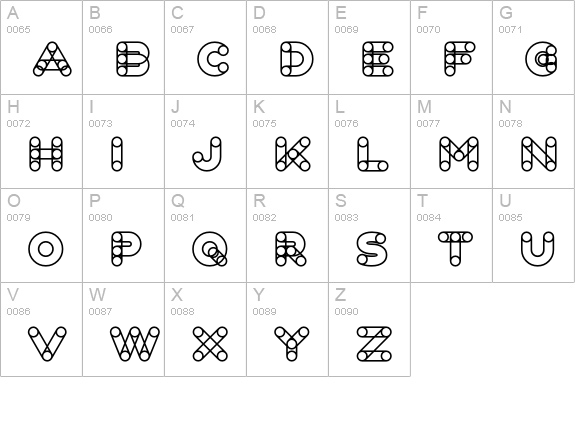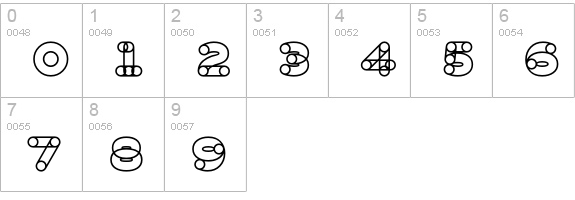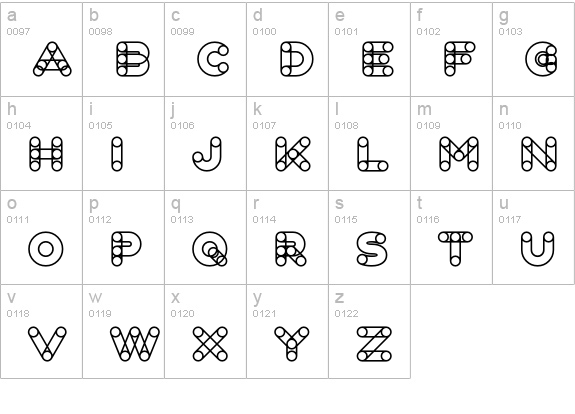
Fun City Level 4 Frame font is a playful and vibrant typeface that will add a touch of fun and whimsy to any design project. This font features quirky characters with a unique frame design, making it perfect for creating eye-catching headlines, posters, and social media graphics. What sets Fun City Level 4 Frame font apart is that it is available for free download at FontsMarket.com. This means you can easily access this fun and creative font without having to spend a dime. Whether you're working on a personal project or a professional design, Fun City Level 4 Frame font is a fantastic choice for adding a fun and lively element to your work. With its bold and dynamic appearance, Fun City Level 4 Frame font is sure to stand out and make a statement. So why wait? Download this fantastic font today and let your creativity run wild!